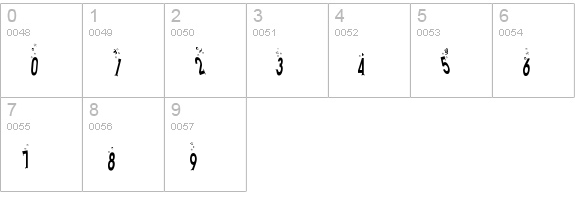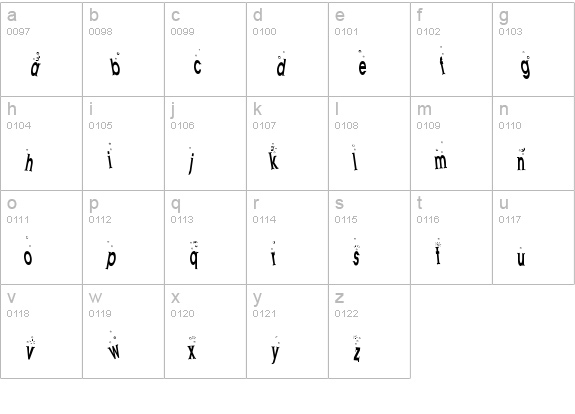
Introducing Hooked on Booze font, a captivating and unique typeface that exudes a sense of fun and playfulness. This font features quirky and irregular letter shapes with a slightly hand-drawn feel, giving your designs a touch of whimsy and charm. The Hooked on Booze font is perfect for adding a touch of personality to your projects, whether it be posters, invitations, or social media graphics. Best of all, the Hooked on Booze font is available for free download at FontsMarket.com. So you can easily add this delightful font to your collection without any cost. Don't miss out on this playful and eye-catching typeface that will surely make your designs stand out!